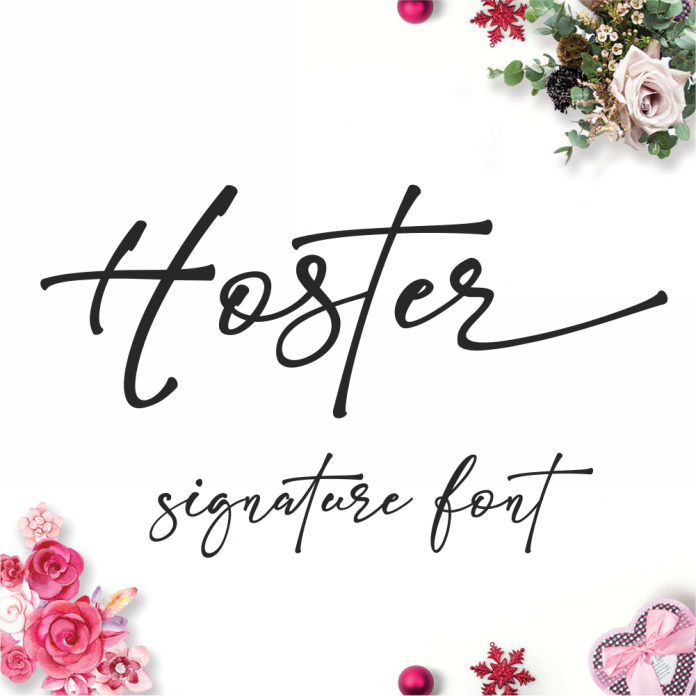
Hoster Signature Font is a elegant and stylish script font that exudes sophistication and charm. With its flowing curves and unique flourishes, it adds a touch of luxury to any design. Perfect for branding, invitations, and other projects that require a touch of elegance.